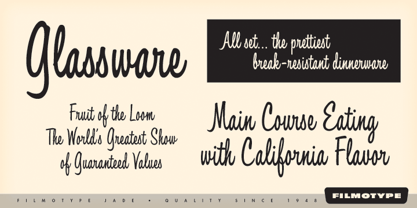
Filmotype Jade
Filmotype Jade™
by Filmotype
Filmotype Jade Font Family was designed by James Lyles and published by Filmotype. Filmotype Jade contains 1 styles. More about this family
About Filmotype Jade Font Family
Filmotype Jade is unique as one of a few bold condensed upright scripts in its library with its smooth flowing handwritten style originally released by Filmotype in 1955 to expand its Scripts category. Filmotype Jade was developed from the original font filmstrips and includes a full international character compliment, automatic fractionals, ordinals, and a very large set of alternate contextual characters and ligatures to allow flawless typesetting in dynamic OpenType format.
Designers: James Lyles
Publisher: Filmotype
Foundry: Filmotype
Design Owner: Filmotype
About Filmotype
Originally sold in the 1950s, the Filmotype introduced by its founders Allan and Beatrice Friedman was a simple manually operated photo typesetting machine (the iMac of the 1950s) and it used 2-inch filmstrips with over 500 amazing display alphabets so the user could set headlines on photo paper or film. Filmotype eventually went on to become Alphatype until the Mac came along in 1984 and POOF! No more photo typesetting! In 2006, the Font Diner acquired this amazing photo film alphabet collection and continues to digitize and releasing these wonderful gems of 1950s lettering as digital fonts! To learn more about the history of this amazing company, a companion book was written and released in 2009. It's called Filmotype: By the Letter - An Illustrated History and at over 130 pages, this book will be sure to become a cherished keepsake in your design bookshelf and can be purchased at (http://www.fontbros.com/merchandise.php).